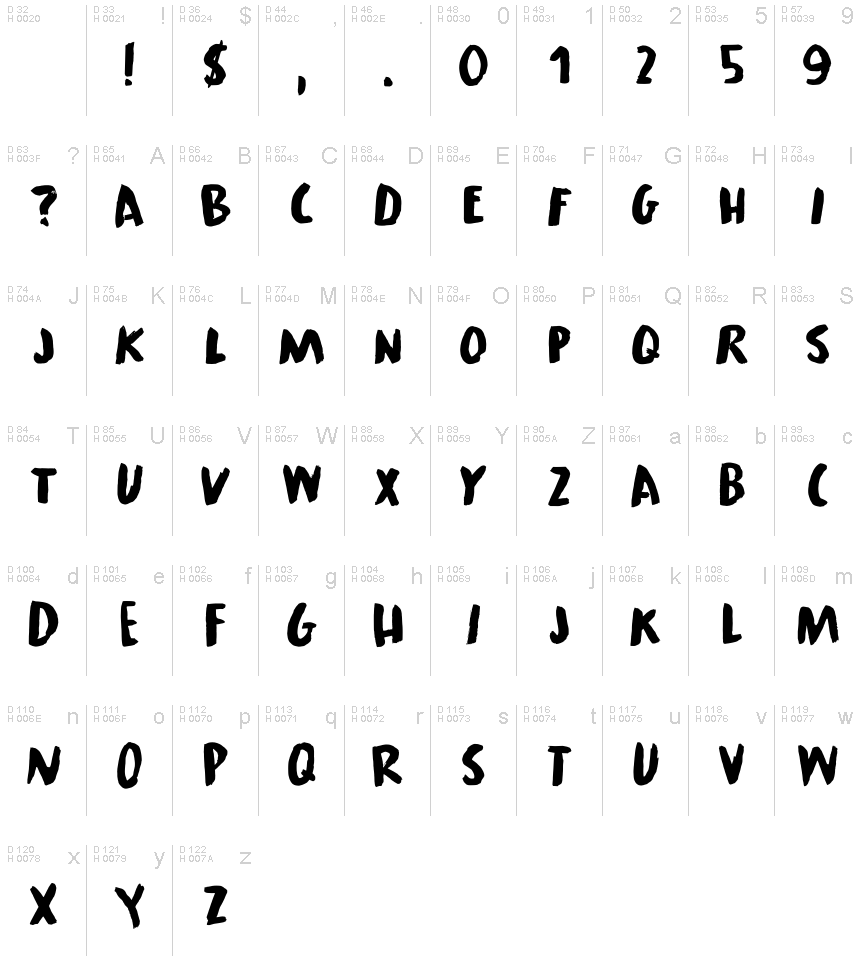
Surround Signal DEMO Regular
Surround Signal font by Hanoded captivates with its bold and dynamic brush style. Its artistic flair adds a human touch, making it perfect for creative projects seeking an authentic and expressive vibe. This free font is ideal for headlines, posters, and branding materials that require a strong visual presence.
Opt for Surround Signal to inject personality into your designs effortlessly. Its robust appearance ensures readability while offering an energetic twist to conventional text presentations. Available for download, this font is a go-to choice for designers aiming to create standout visuals with a touch of character.